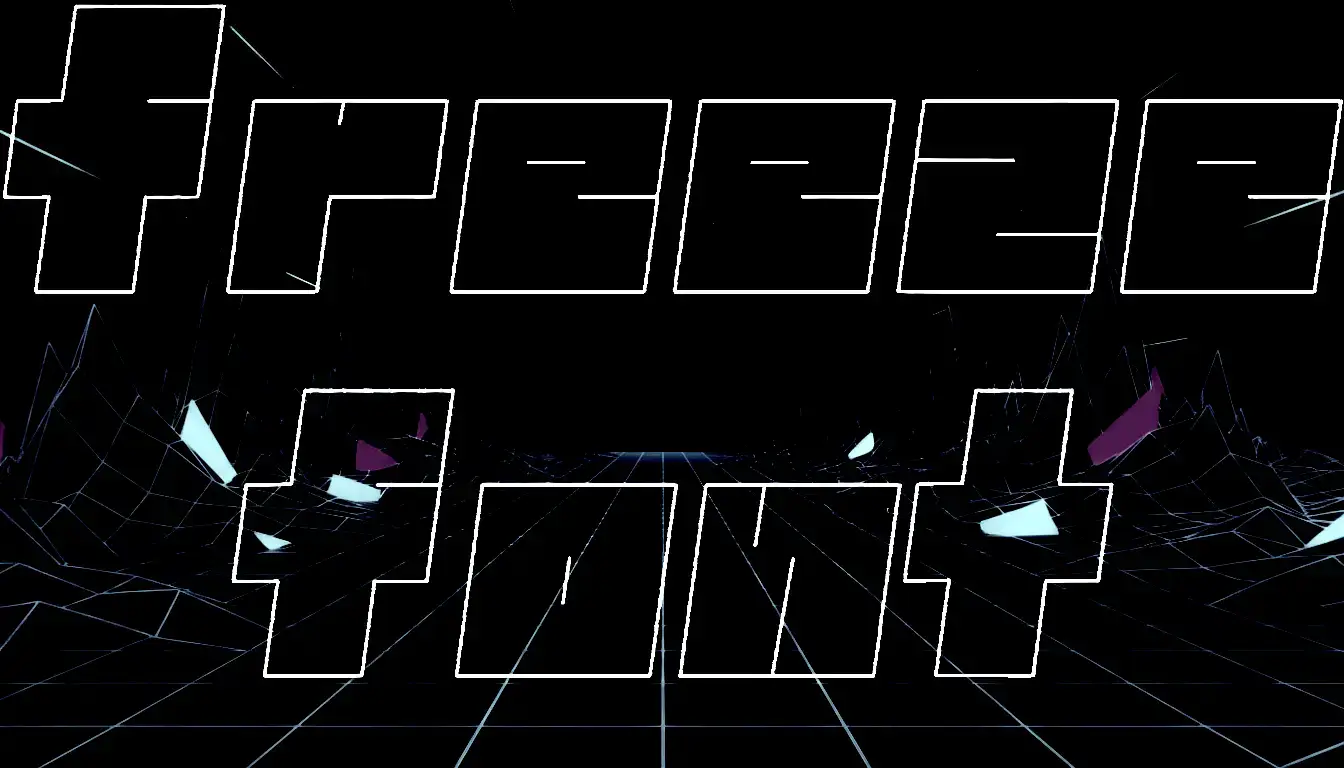
Freeze Font
This is a sharp, blocky, and modular geometric font. It features high-impact squared characters that borrow design cues from digital displays and circuit line layouts.
Freeze is a techno font created by Kerrin Fernandez. Its angular, engineered shapes look right at home on screens and tech products. You can download it for free and test it with your own words in the preview above.
What You Can Type With Freeze
With complete upper and lowercase letters and all ten digits, Freeze is ready for real wording, not just a single headline. Punctuation is limited, so look at the character map if you need a specific symbol. It doesn't include accented letters such as é or ñ, which makes it an English-only font.
Where Freeze Works Best
Freeze is a natural fit for gaming logos, tech branding and futuristic posters. Try it on a dark background with a bright accent color for a sharp, modern look.
No. Freeze has no accented letters such as é, ñ or ü, so it's best for English text.
What fonts pair well with Freeze?
A simple sans serif like Roboto keeps longer text easy to read next to it.